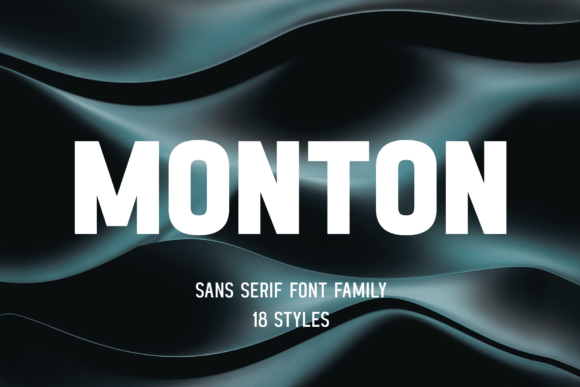
Introducing Monton Font - the ultimate font family that will take your design to a whole new level! Created by the talented designer Pasha Larin, Monton Font is a condensed block sans-serif font that is perfect for all your design needs. This font is not just stylish and modern, but it is also versatile and functional.
With a total of 18 fonts, ranging from thin to black style as well as in oblique style, Monton Font has got you covered for all your design needs. It is well-readable and irreplaceable in modern design and can be used as a main or additional one. This means that you can use it for anything from titles, logos, branding, posters, flyers, website design, advertising, labels, packaging, web titles, text descriptions, and much more!
If you're looking for the best fonts for a website in 2015, then Monton Font is definitely worth considering. It is perfect for creating eye-catching headings that will grab the attention of your visitors and make your website stand out. Plus, it is keyword-rich, which means that it will help your website rank higher on search engines, giving you more exposure and visibility.
But that's not all! Monton Font is not just functional; it is also aesthetically pleasing. It exudes a sense of elegance and sophistication that will elevate your design to new heights. With its clean lines and modern style, Monton Font will help you create a sleek and professional look that your customers will love.
Overall, Monton Font is a must-have font family for any designer. Whether you're working on a logo, website design, or advertising campaign, this font will help you achieve your creative vision. So why wait? Download Monton Font today and take your design to the next level!